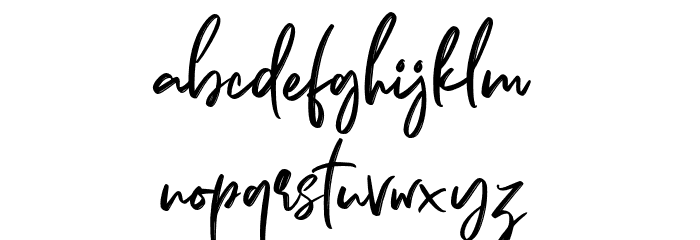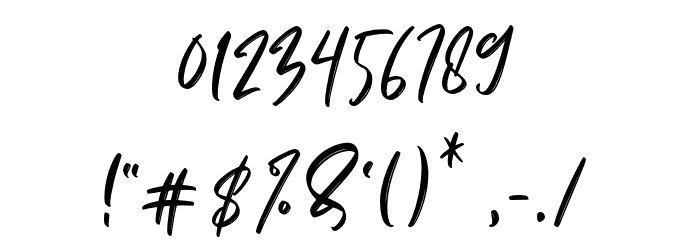
Sometimes Font
This font exudes a lively and dynamic handwritten style, characterized by its fluid and cursive letterforms. The strokes are smooth and slightly irregular, giving it a personal and informal touch. The uppercase letters are bold and prominent, while the lowercase letters maintain a consistent flow, enhancing readability. Numbers and special characters are crafted with the same playful energy, making them stand out. The overall appearance is both elegant and casual, suitable for projects that require a personal or artistic flair.
A lively, cursive handwritten font with smooth, flowing strokes.
- Proposed Projects: Ideal for wedding invitations, greeting cards, personal branding, and artistic projects.
- Use Case: Logos, Invitations, Artistic projects